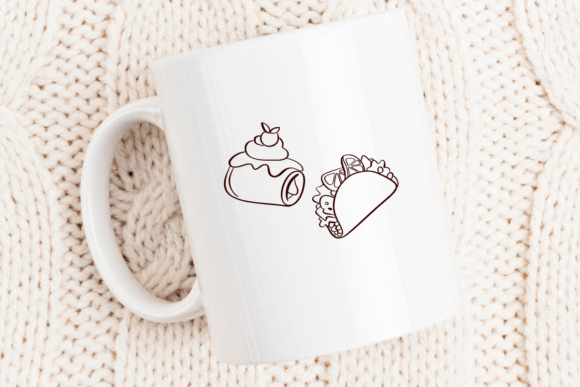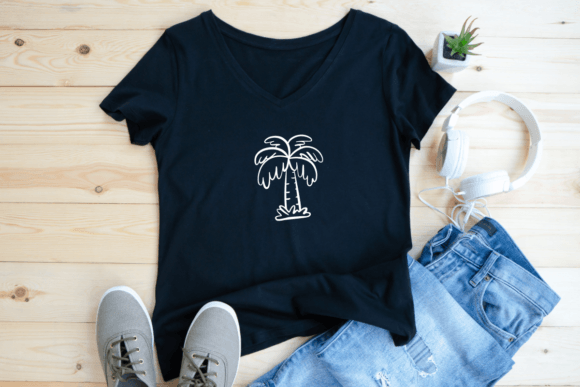
Introduction to Cute Summer Font Font
Fonts play a crucial role in design, and the Cute Summer Font font is a typeface that brings both character and versatility to any project. Whether you’re working on a branding project, a website, or a print design, the Cute Summer Font font offers a unique style that can elevate your work.
βCute Summerβ is a fun, playful font filled with adorable summer-themed doodles like suns, seashells, and ice creams.
It adds a touch of sunshine and whimsy to your text, perfect for brightening up any summer project .
Key Features of Cute Summer Font Font
Why Choose Cute Summer Font Font?
The Cute Summer Font font is more than just a typeface β it’s a design tool that helps you communicate your message with style and clarity. Its unique character set and versatile design make it suitable for a wide range of applications, from elegant invitations to bold headlines.
With its carefully crafted letterforms and balanced proportions, the Cute Summer Font font ensures readability and visual appeal across all mediums.
What makes Cute Summer Font font special?
The Cute Summer Font font stands out with its unique design, exceptional readability, and versatility across various design applications.